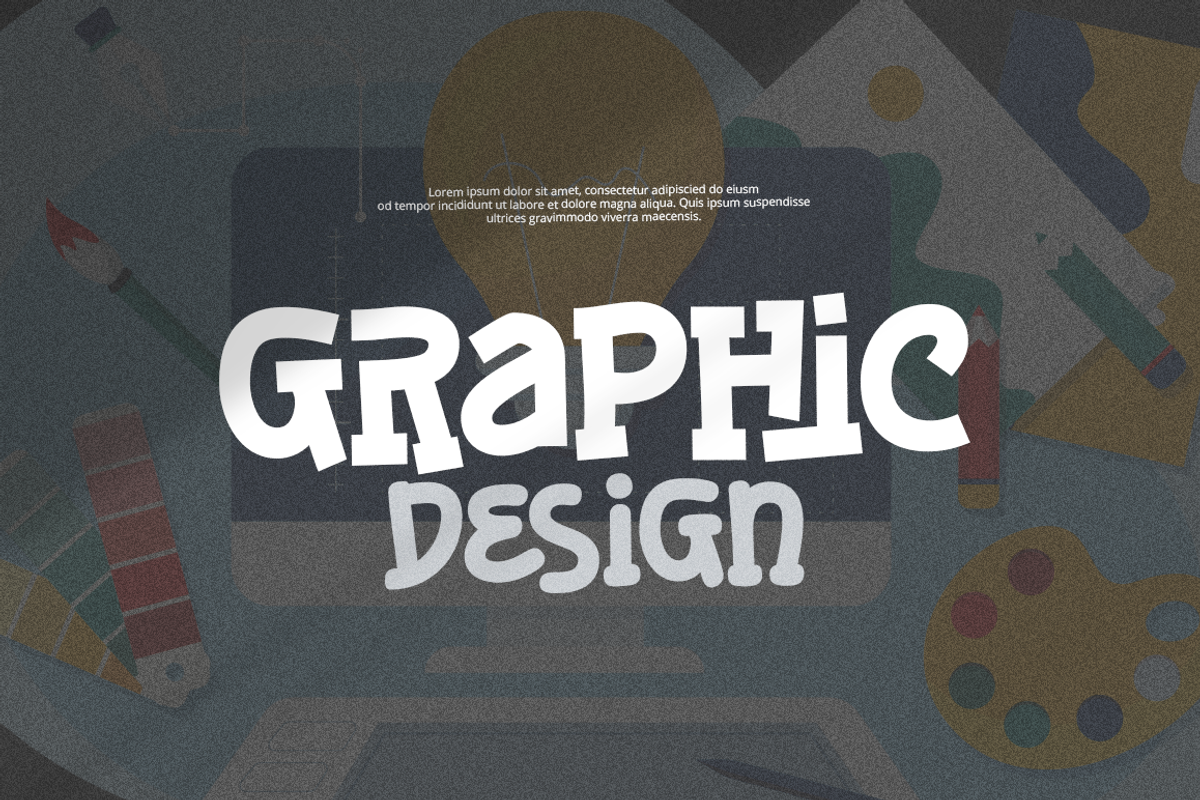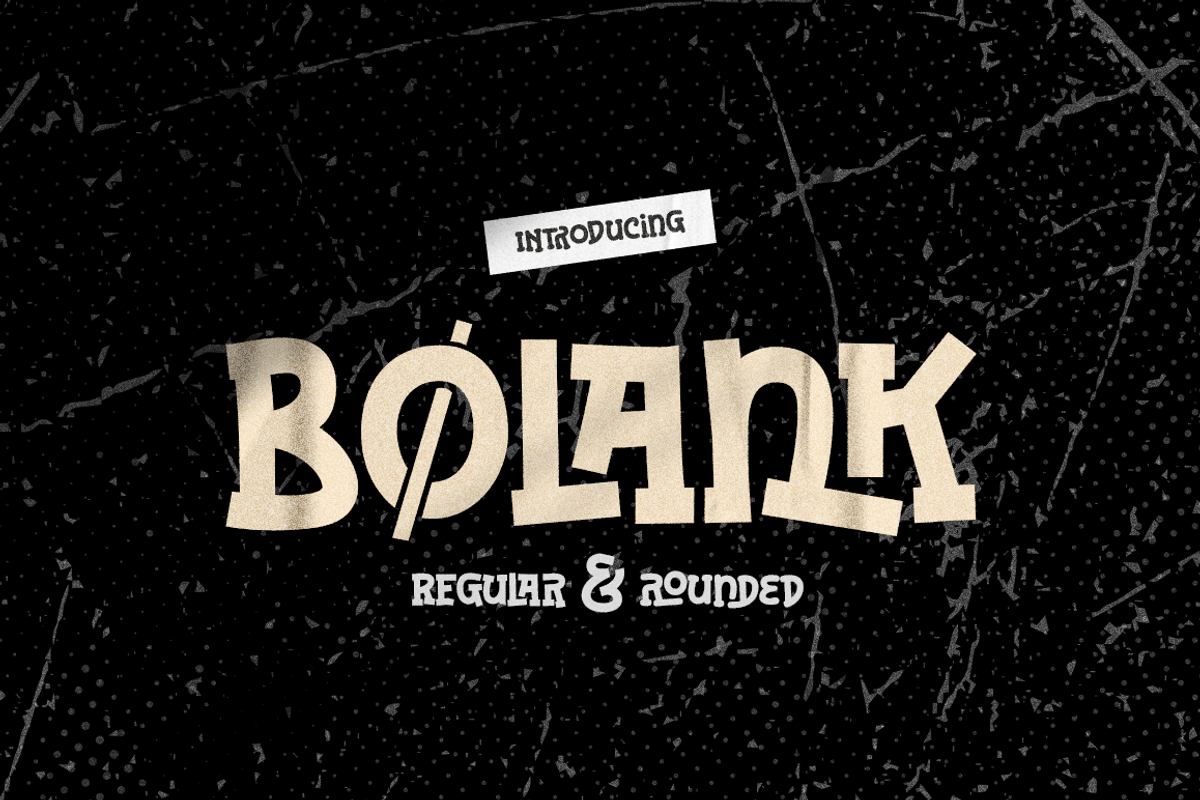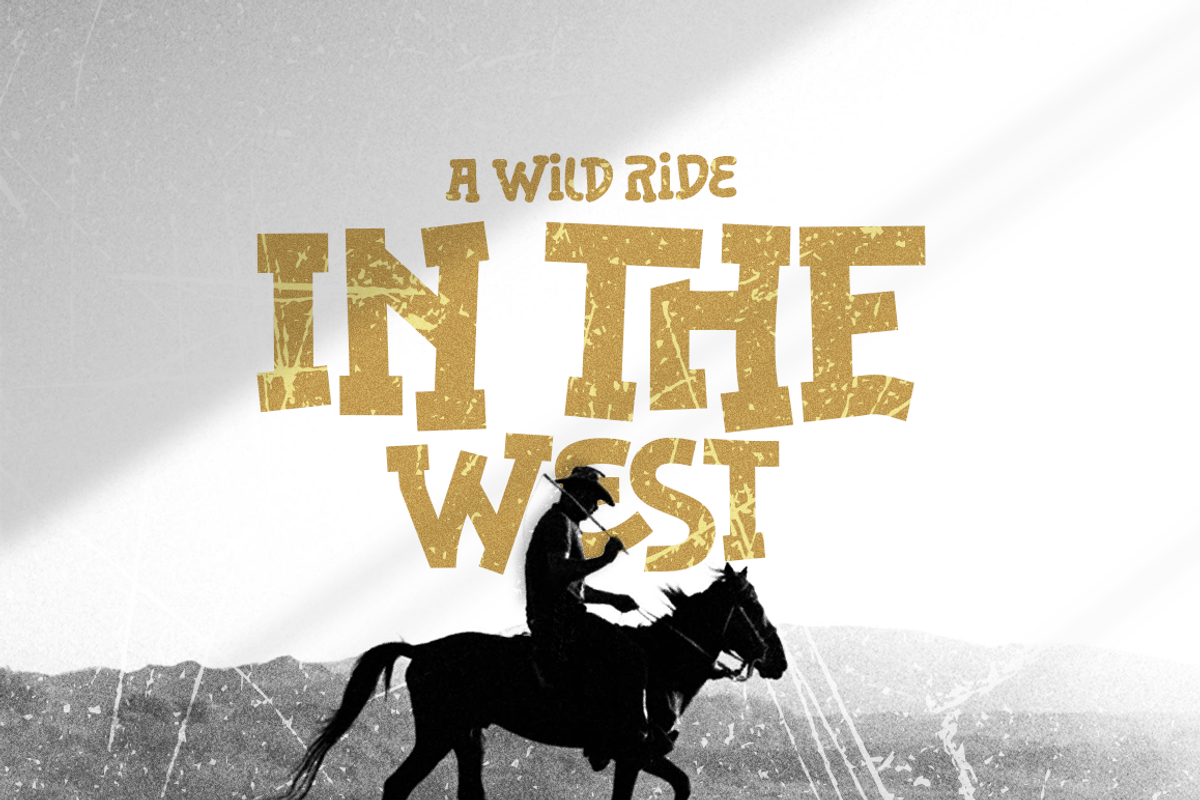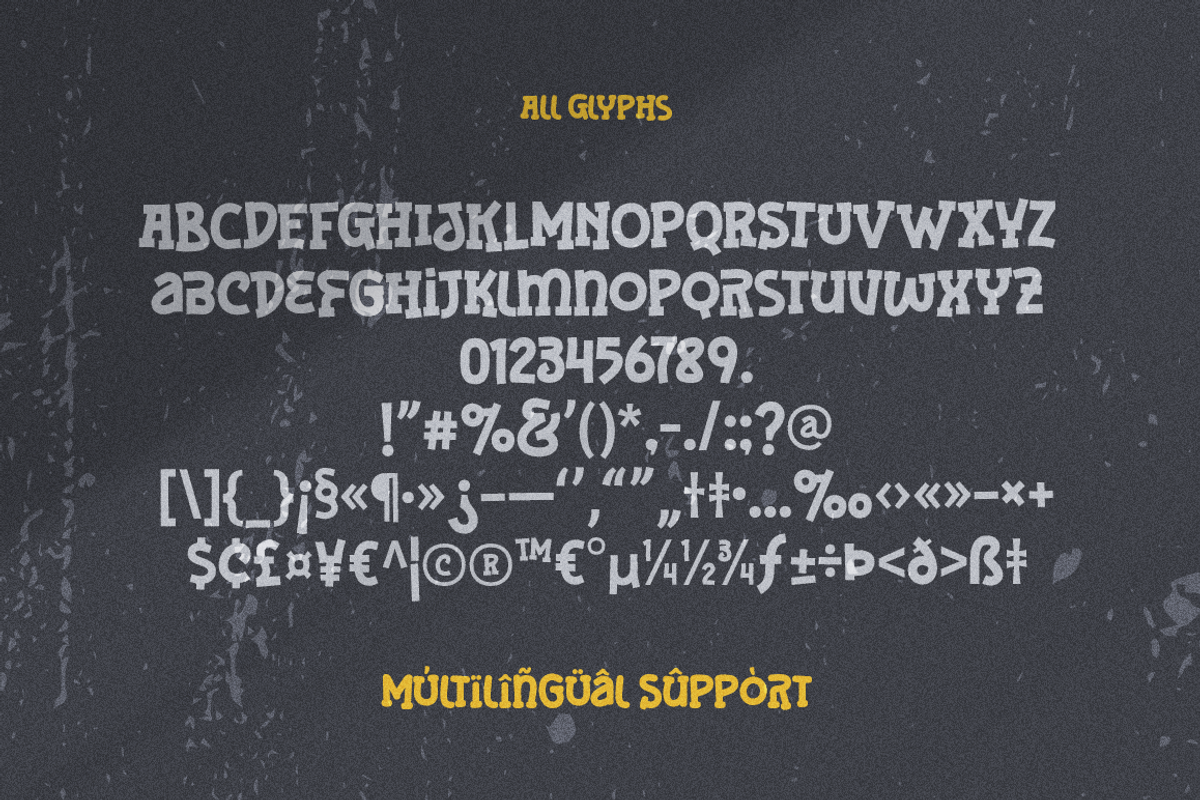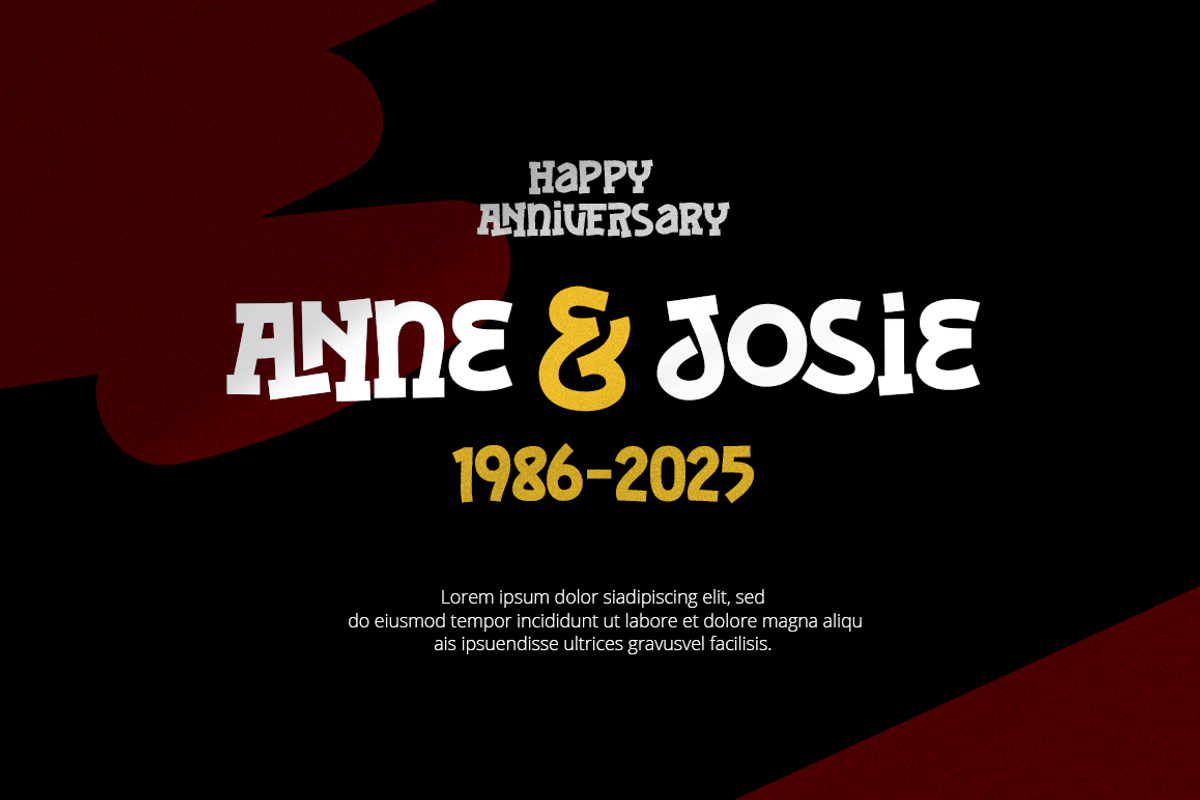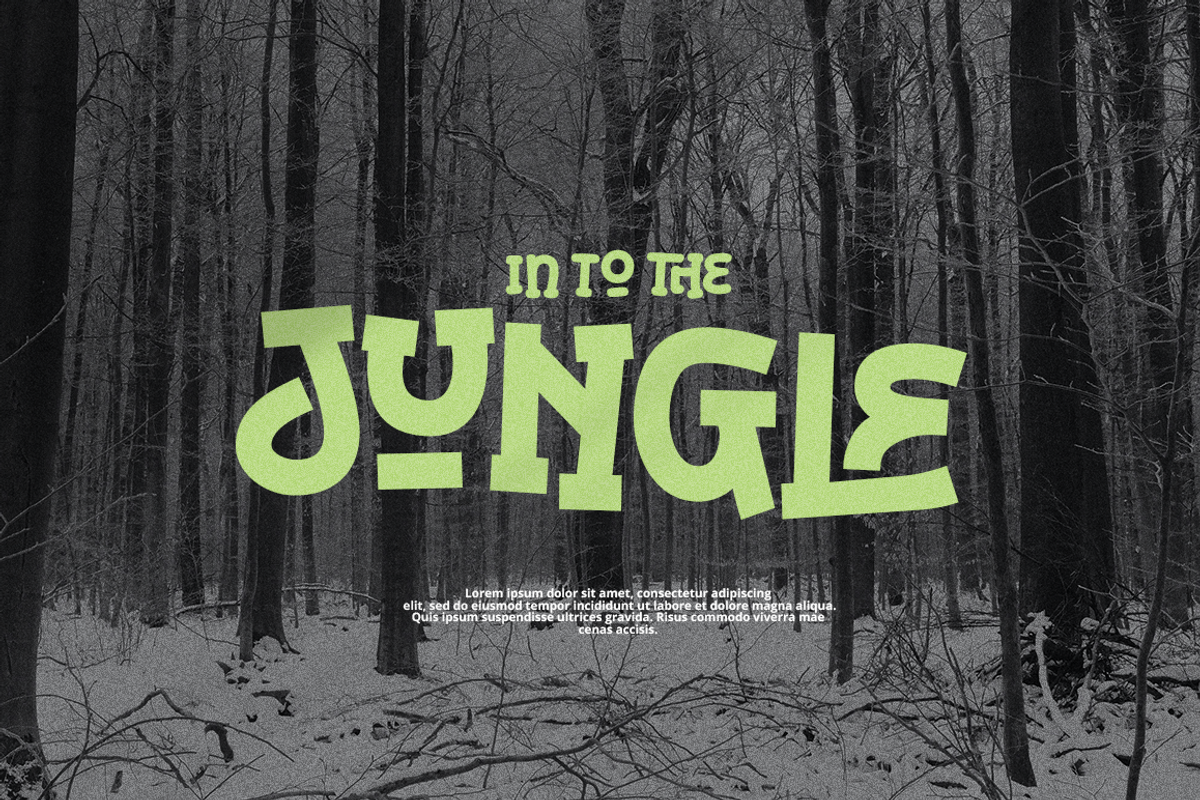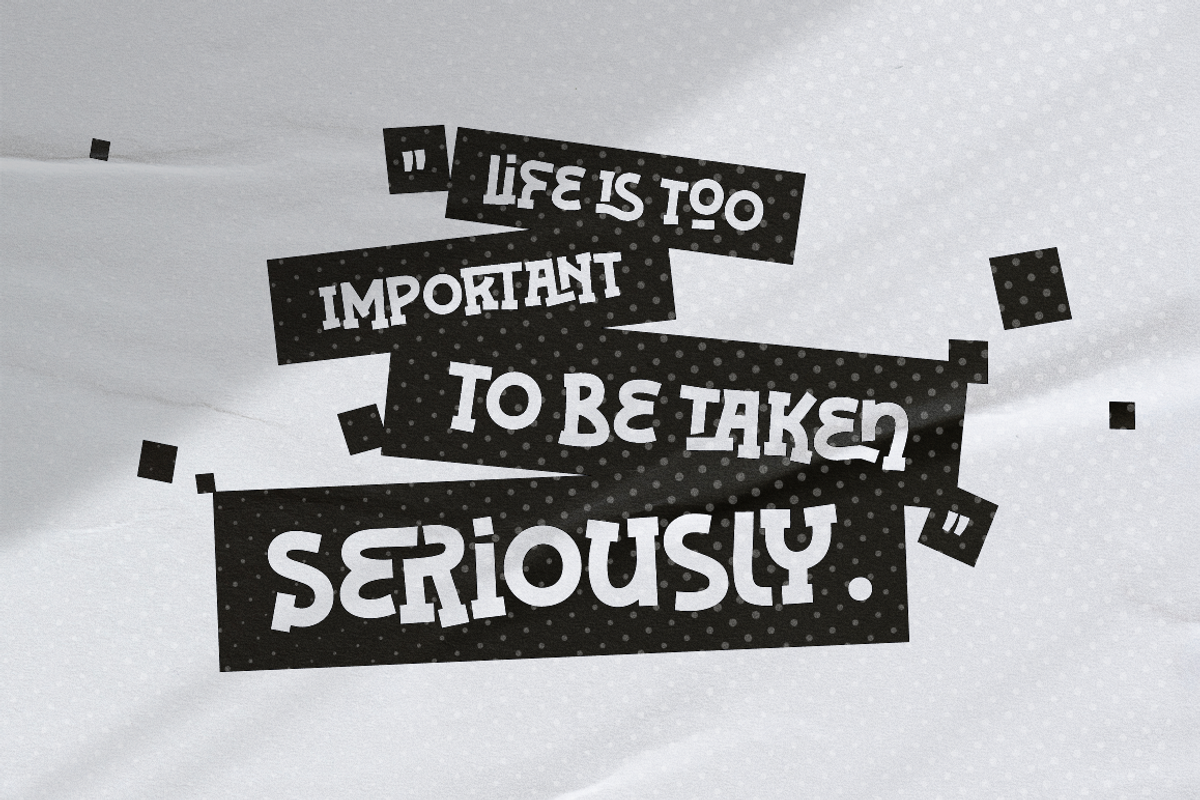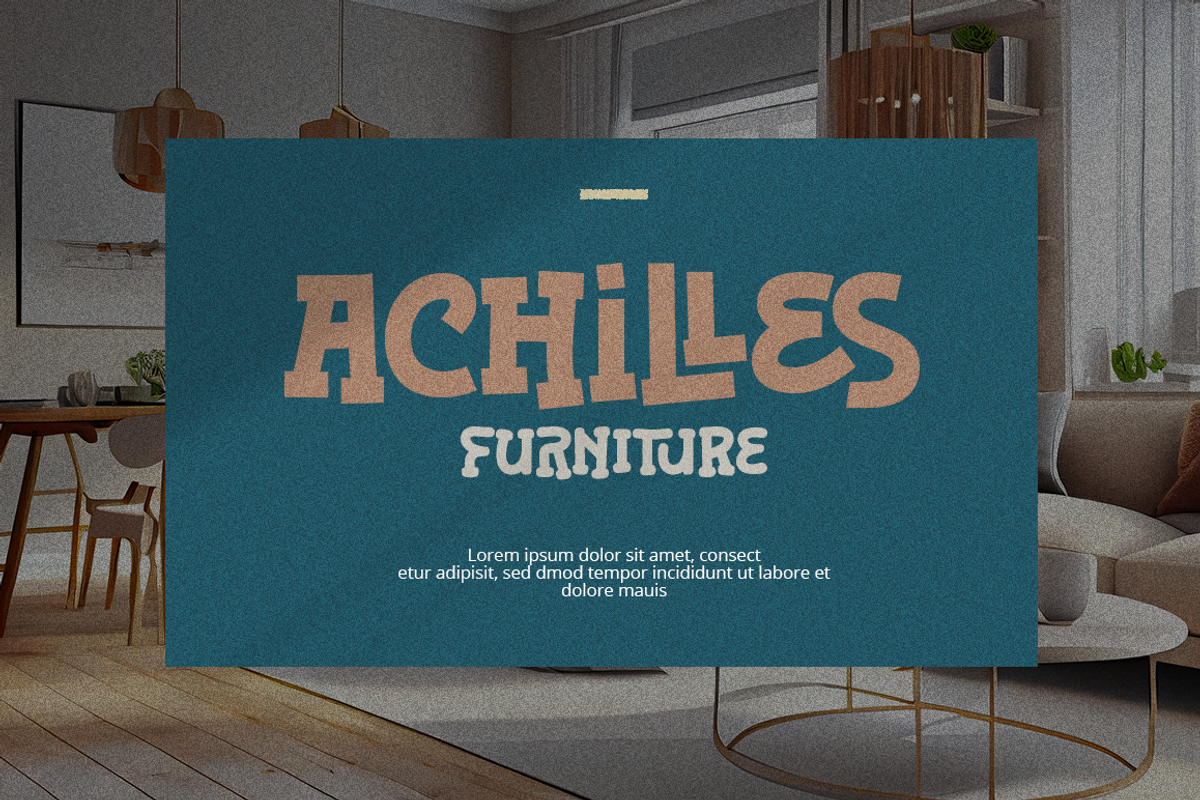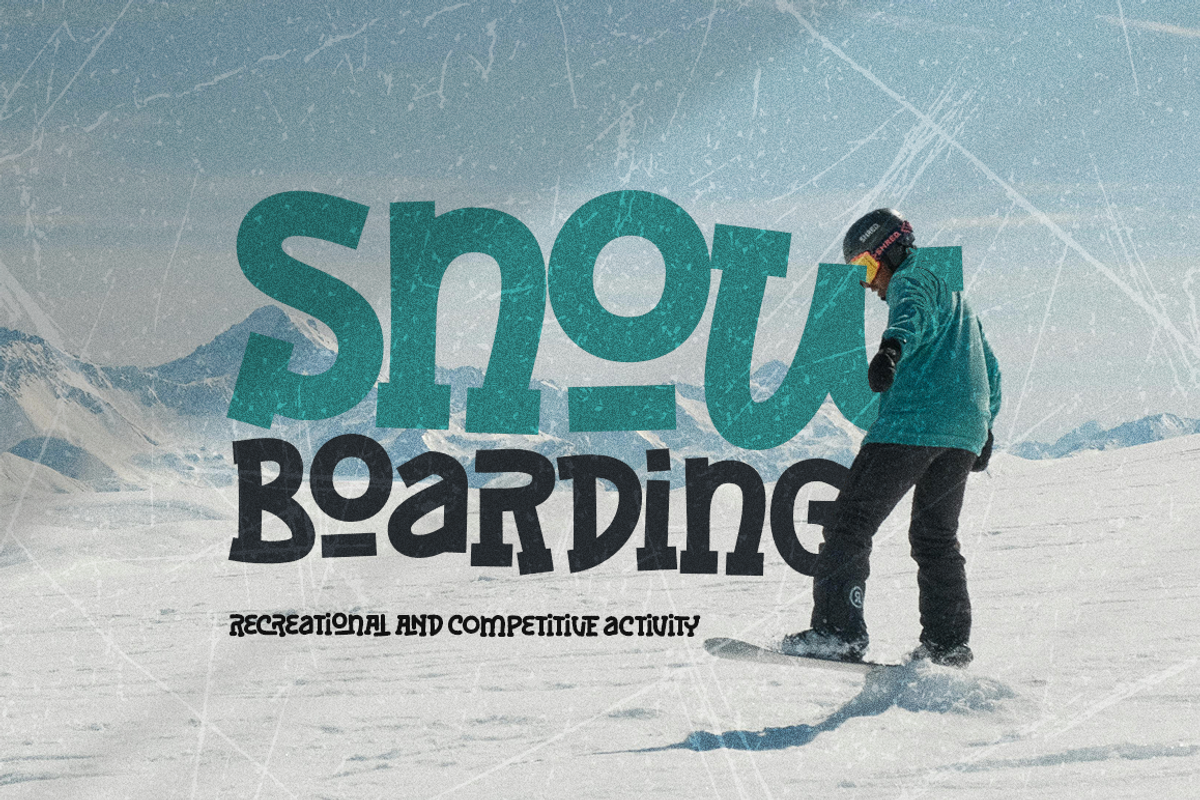
Bolank - Slab Serif Font
Bolank is a distinctive typeface that combines the raw energy of handwriting with the solid presence of slab serif fonts. Designed for bold statements and eye-catching designs, Bolank strikes a perfect balance between playfulness and stability. This Font offers two unique variations to suit different design needs. The regular version provides a crisp, sharp aesthetic, while the rounded version adds a softer, friendlier touch to your designs. Bolank is the perfect choice for designers seeking a typeface that combines the warmth of handwriting with the strength of slab serif typography. Whether you're designing for print or digital media, Bolank adds a touch of flair and sophistication to any project..
- Regular and Rounded
- Basic Latin Glyphs
- All Caps Font
- More ligatures
- Currencies